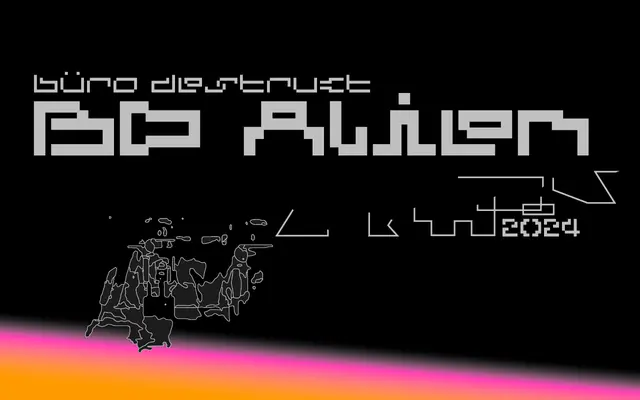
BD Alien
A variable sci-fi display typeface with weight and width axes spanning Regular to Black and wide to slim cuts.
Designed for science fiction and electronic contexts, BD Alien is available as both static and variable font files, with the variable version covering weight from Regular to Black and width from wide to slim. The family ships in six static styles alongside four VF cuts, covering Latin script across 25 European languages. It suits poster work, game interfaces and any brief calling for a retro-futurist or outer-space tone.
BD Alien is a display typeface with an explicitly electronic, sci-fi aesthetic, designed for expressive use rather than body text. Its variable width and weight axes, along with its described 'blips and bleeps' character, place it firmly in the techno display subcategory.